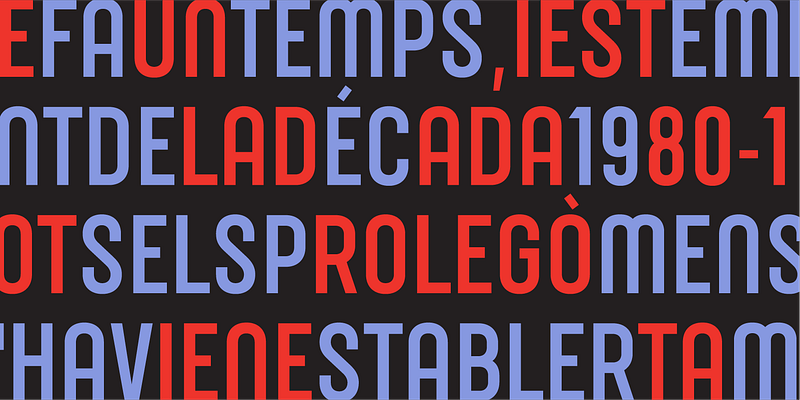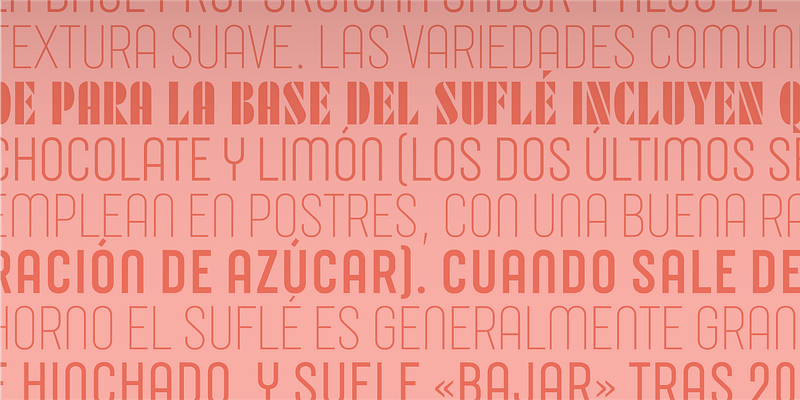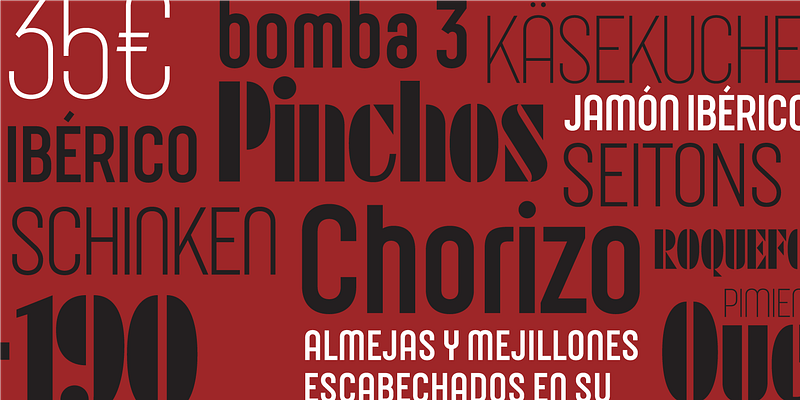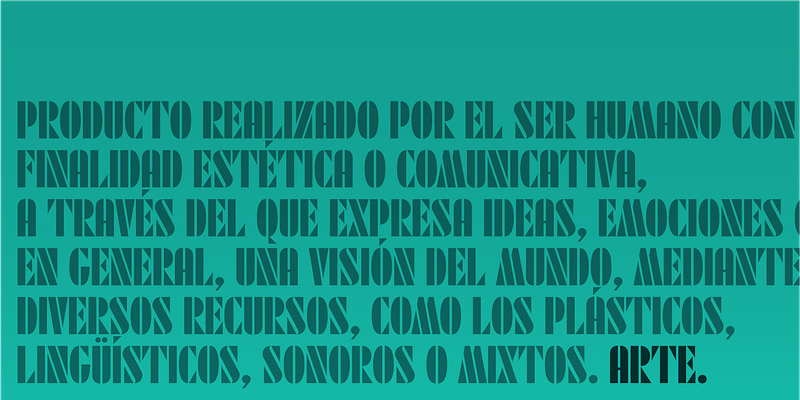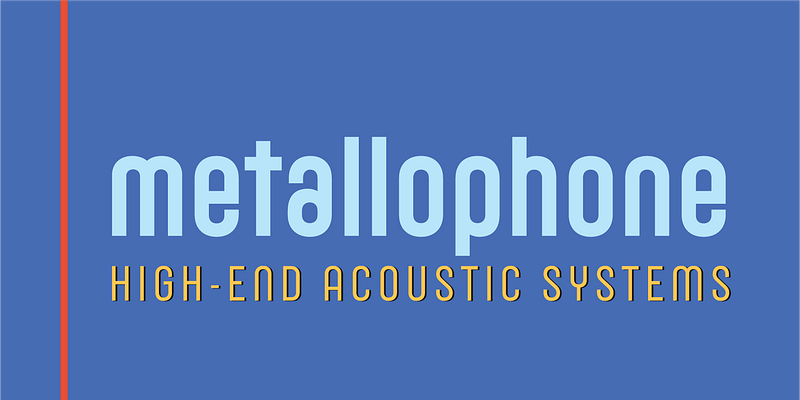
Joost is not just a study on the structure and development of the classic Bauhaus alphabets. It also represents Josema Urós’ drive to transform those shapes into a usable font family. The first version of Joost, published in 1995, stringently adhered to the concept of Herbert Bayer’s Universal Alphabet, which contains only lowercase characters. Urós went above and beyond that in his interpretation, though, with diacritics, punctuation, and a full 256-character ASCII table. The second Joost, released in 2009, incorporated uppercase characters and some serious design improvements. The Joost of 2016 has expanded even further; it now includes a complete character set of Central European and OpenType features, as well as a new system of curves. The Bauhaus continues to evolve; Type-Ø-Tones 1995–2017